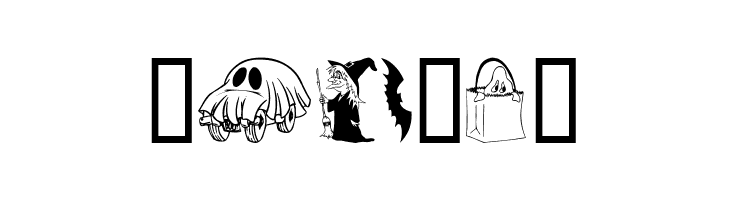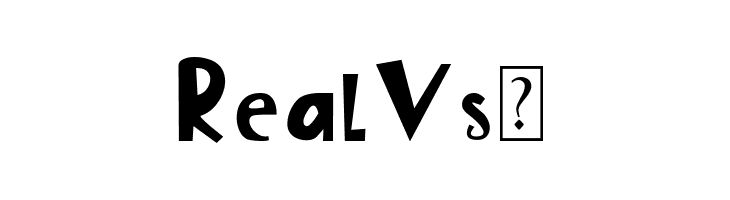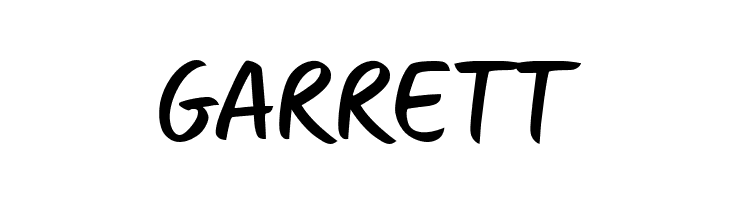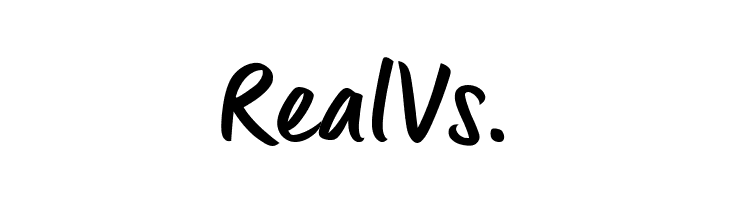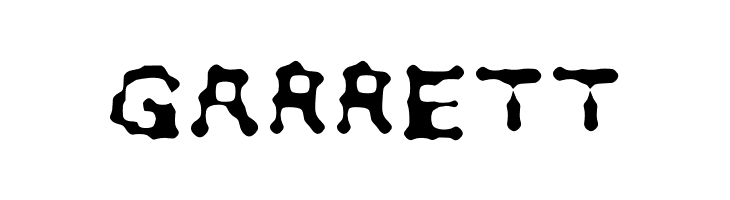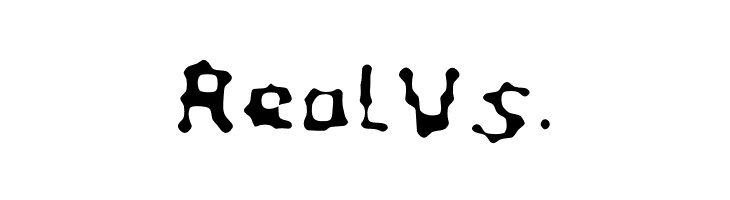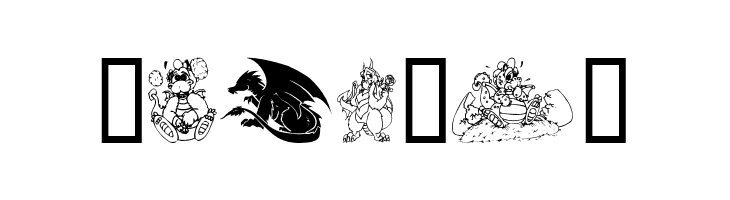
A playful font with dancing figures integrated into each letter.
A decorative font with diamond motifs, offering a luxurious and elegant style.
A whimsical font with fairy characters adorning each letter, combining outlined uppercase with bold lowercase styles.
A whimsical font with crowned frog illustrations integrated into outlined letters.
An ornate, decorative font with floral embellishments on each character.
A playful decorative font with cartoon figures integrated into each character.
A whimsical font with festive characters integrated into each letter.
An ornate and decorative font with floral embellishments.
A decorative font with cherubic illustrations integrated into each letter.
A decorative font with royal-themed illustrations integrated into each letter.
A whimsical font with playful character illustrations integrated into each letter.
A bold, decorative font with integrated tiger illustrations in each character.
A collection of playful Halloween-themed illustrations replacing traditional characters.
A playful, hand-drawn font with bold, uneven strokes and whimsical character shapes.
A whimsical serif font with playful illustrations on each uppercase letter.
A geometric, triangular-patterned font with a bold, modern style.
A modern, geometric font with consistent stroke width and a tech-inspired aesthetic.
An elegant, cursive font with intricate swashes and a refined, artistic style.
A bold, distressed gothic-style font with a dramatic and textured appearance.
A whimsical font with mouse-themed uppercase and cheese-themed lowercase letters.
A geometric, linear font with intersecting lines and boxed numerals.
A bold, edgy font with thick strokes and sharp angles, ideal for impactful designs.
A bold, handwritten font with a casual and dynamic style.
Whimsical dragon-themed decorative font with illustrated glyphs.
A playful, blob-like font with an organic, hand-drawn appearance.